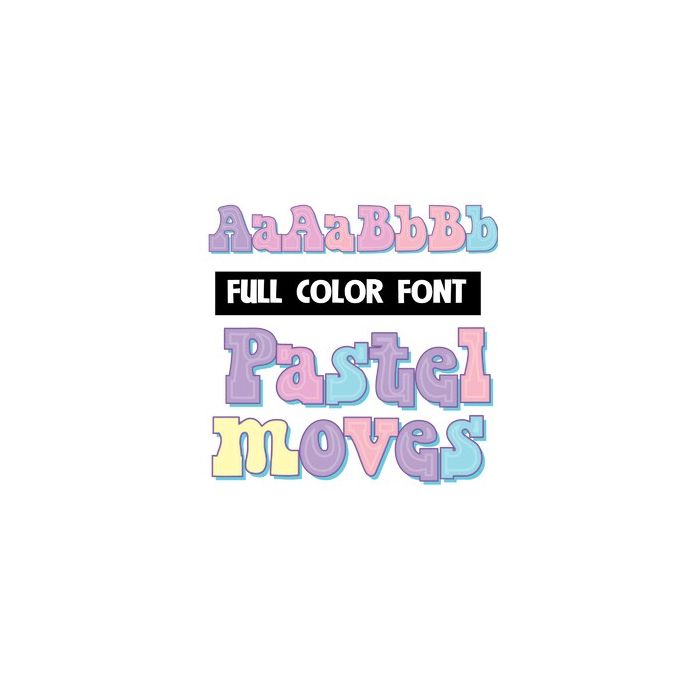
This full-color font features retro lettering in a pastel color palette. There is an alt case w/ additional colors you can access through your system or Silhouette's glyph map.